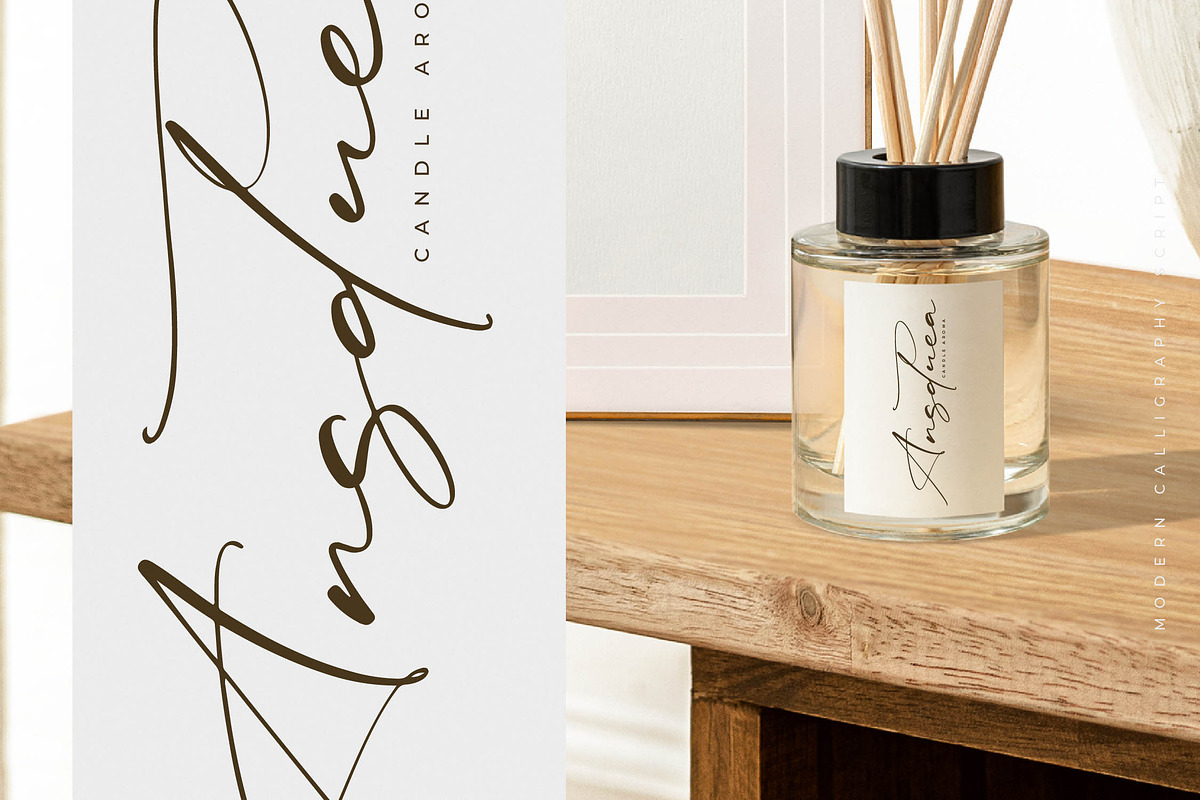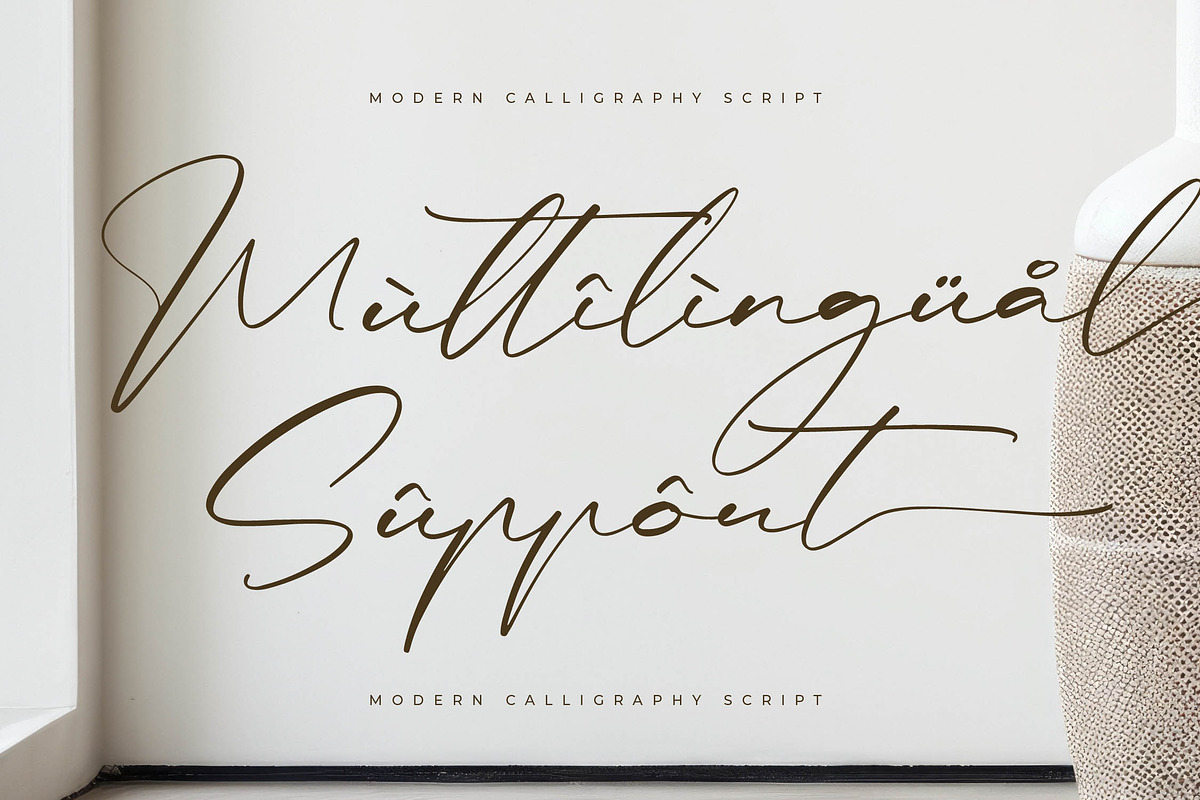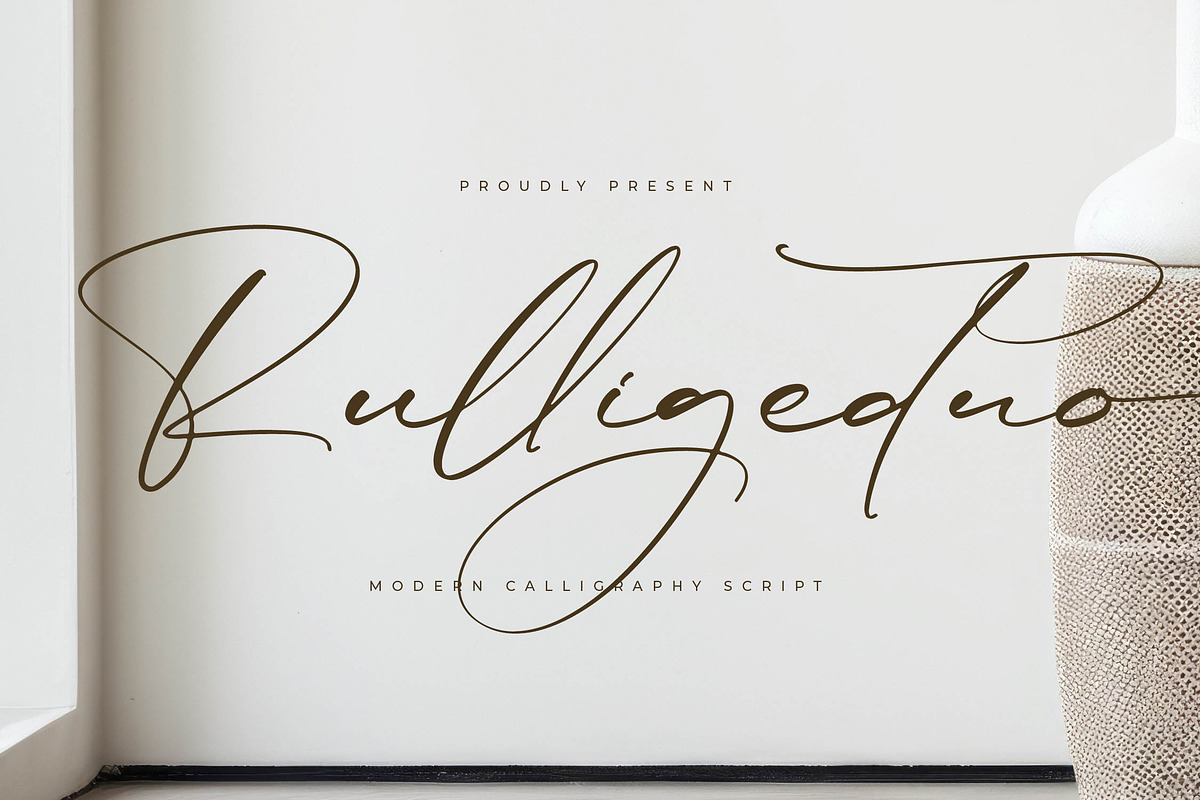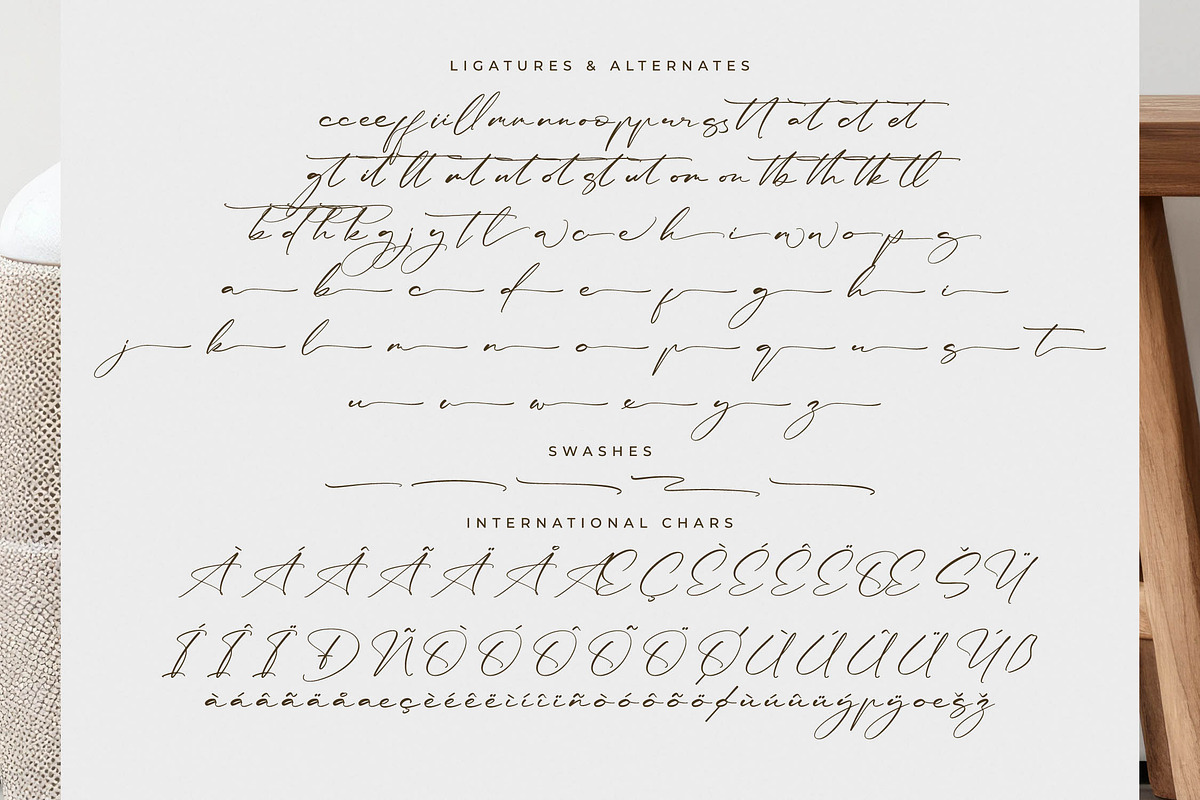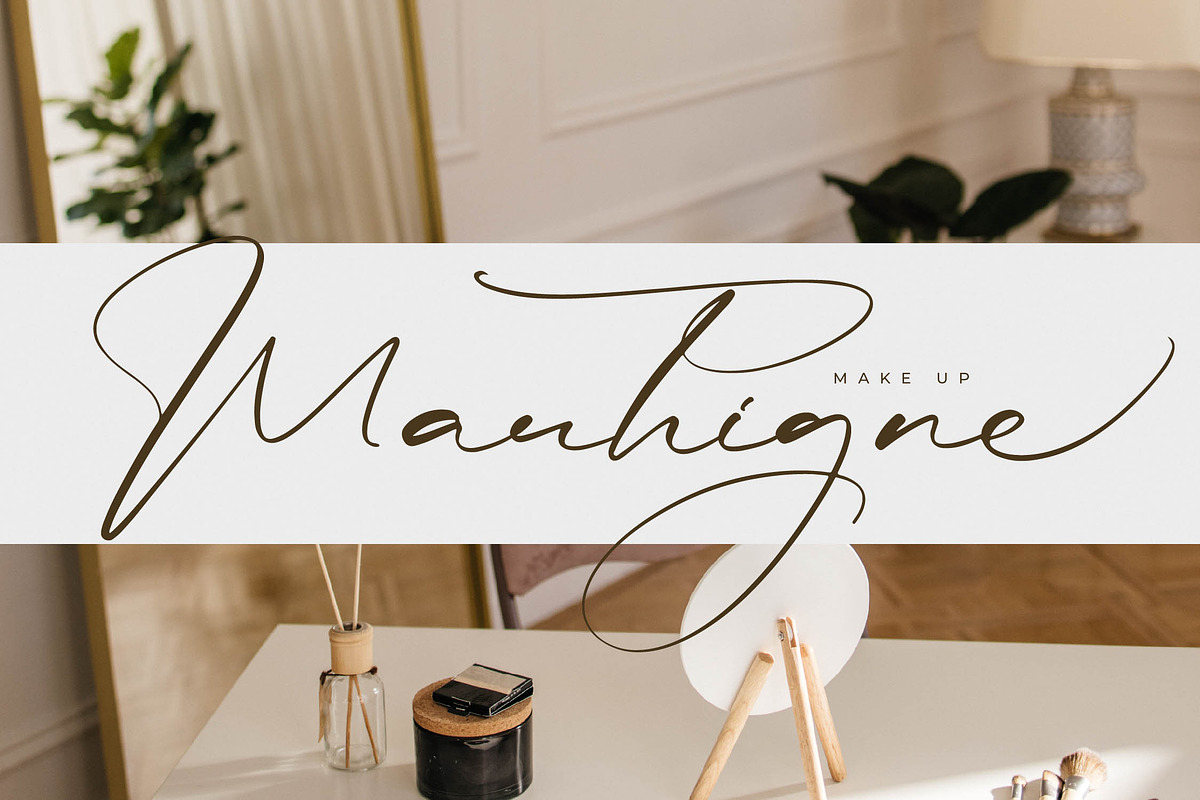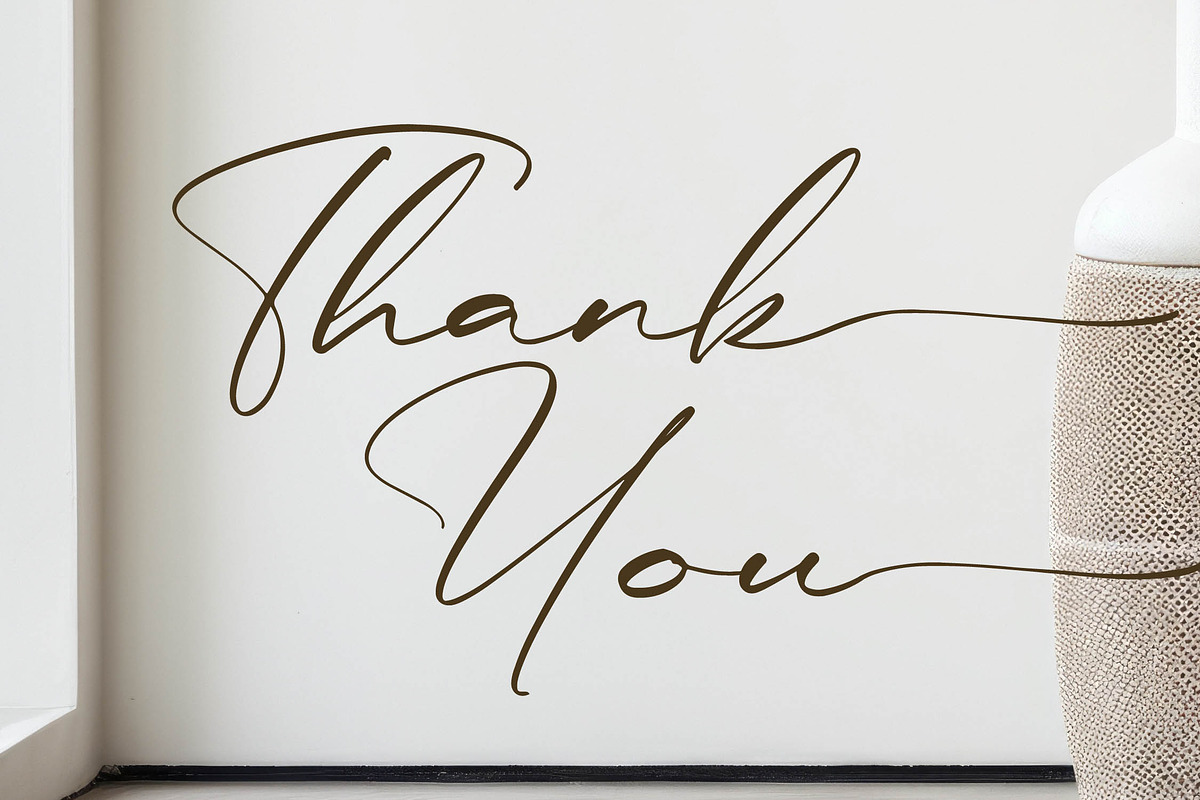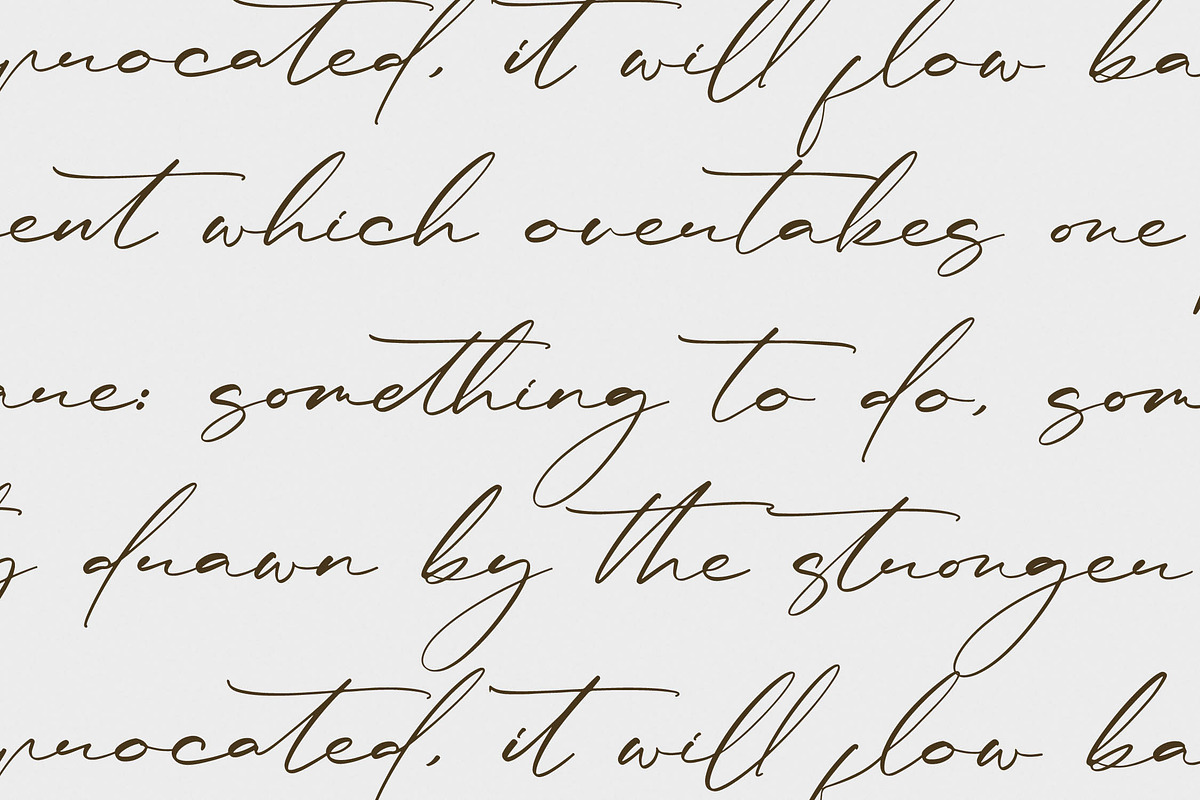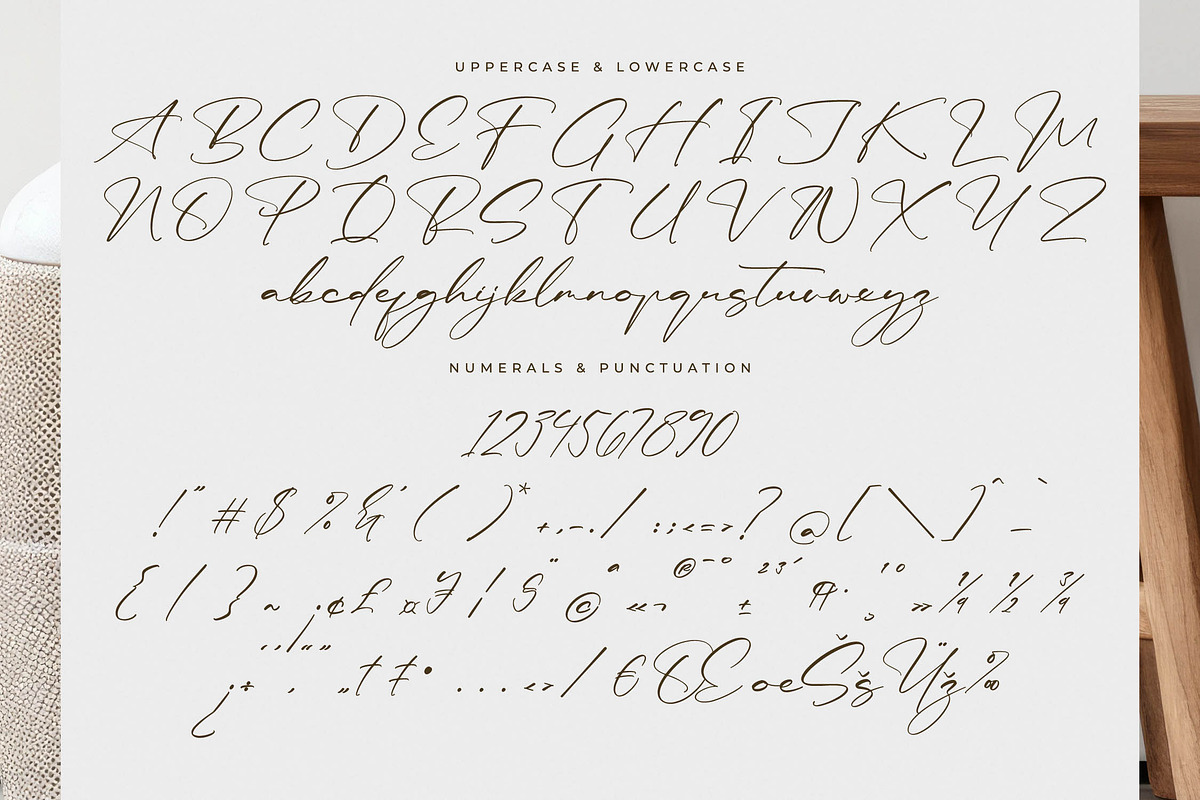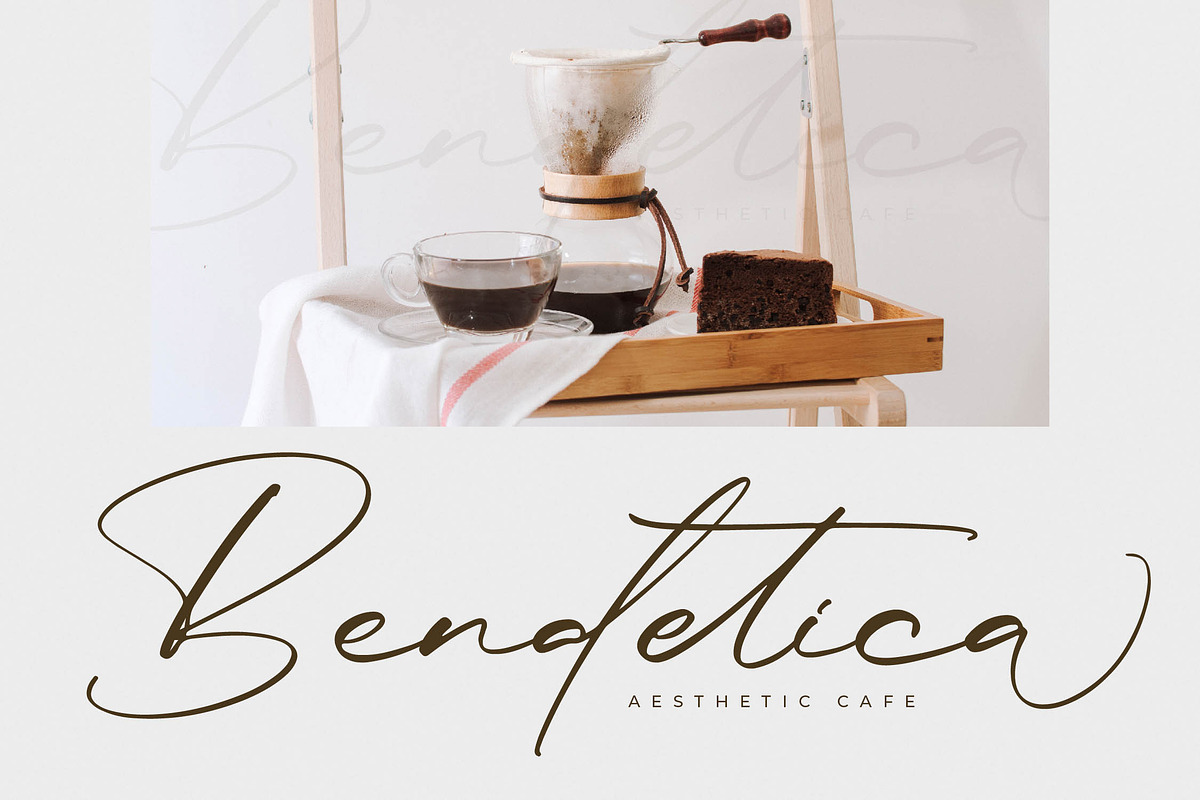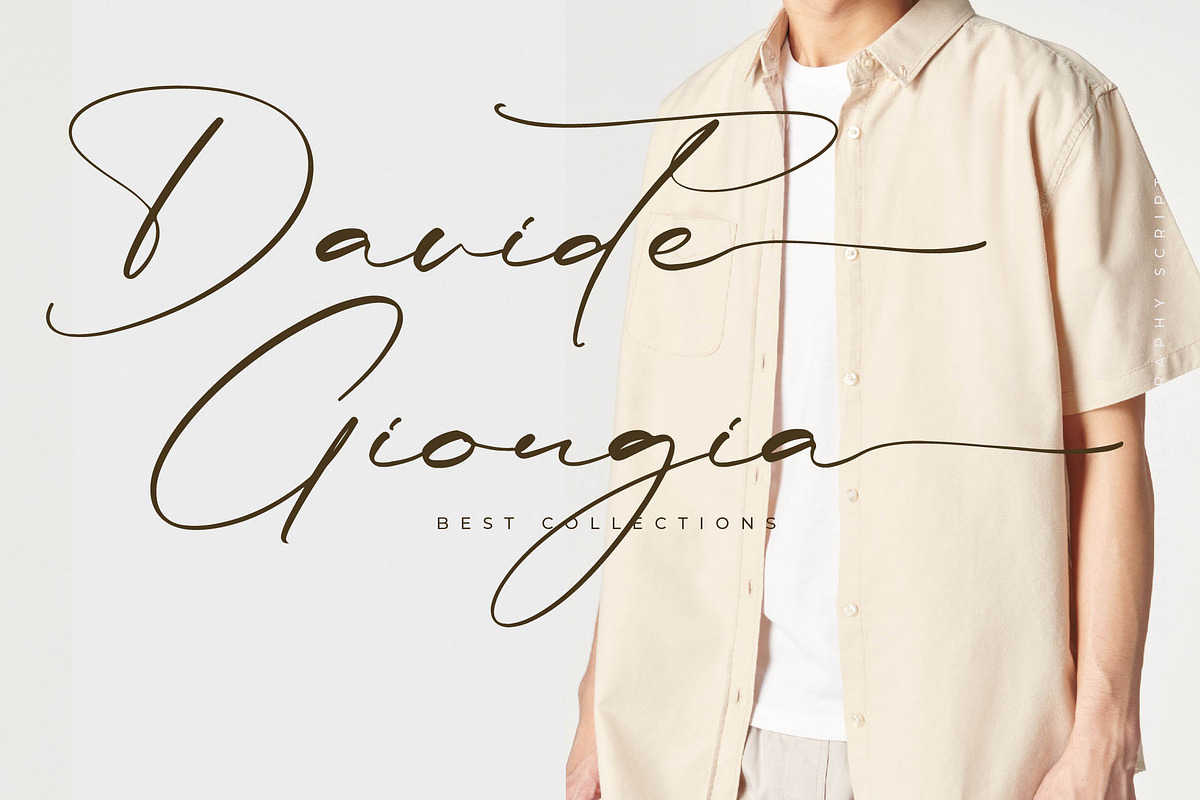
Rulligedro Modern Calligraphy Script
Rulligedro – Modern Calligraphy Script , from Letterena, is a Luxury Script font, suitable for any projects such as: logos, branding projects, homeware designs, product packaging, mugs, quotes, posters, shopping bags, t-shirts, book covers, name card, invitation cards, greeting cards, label, photography, watermark, special events, and all your other luxury and beautiful projects that need a Luxury Script taste.